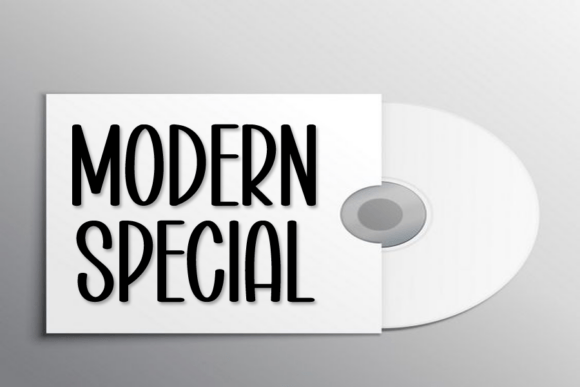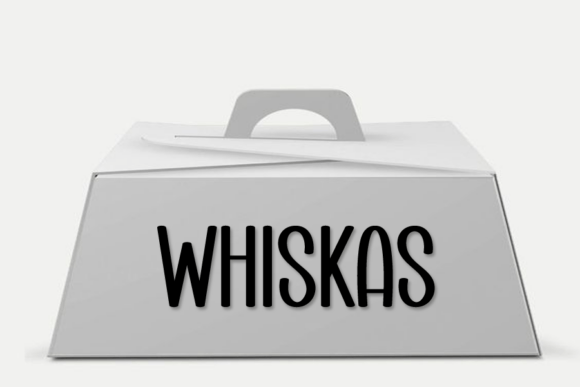
Monogram Handwriting Font
Monogram Handwriting is a fun and quirky font. No matter the topic, this font will be an incredible asset to your fonts’ library, as it has the potential to elevate any creation.
It is suitable for logotype, headline font, in corporate identity, brand identity, apparel industry, poster, music, movie, game, magazine, book, comic, cartoon, YouTube, Instagram, website, or any of your creative design projects